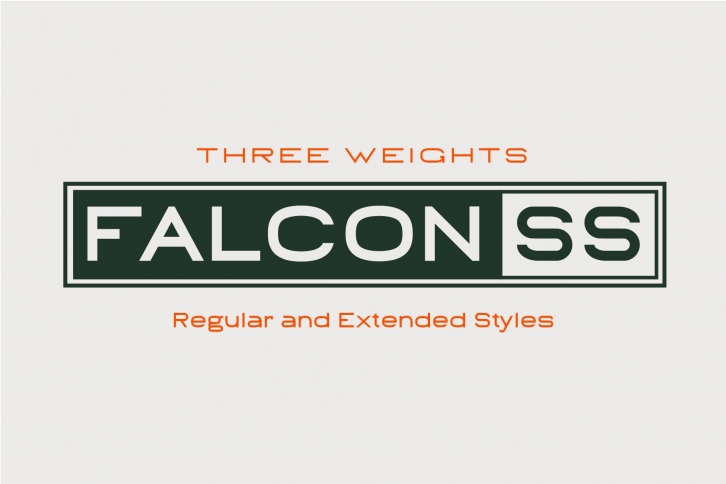
Falcon SS really just is the Falcon SR just stripping away the serifs. A sleeker more modern version of the 60s or 70s style typeface I was inspired to create for Falcon SR. It still invokes the same type of era but in much more look to the future from that time. This also comes in three weights, and both extended and regular styles.